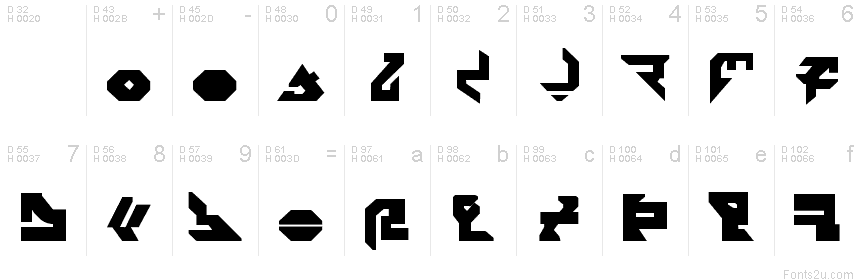
AVIAN/MYRMICAT numerals
Created by Jim Sorenson. Completed on 8/20/97. To be distributed freely. Based on Arthur C. Clarke's Rama series. Font completed with help from The Nixtr.